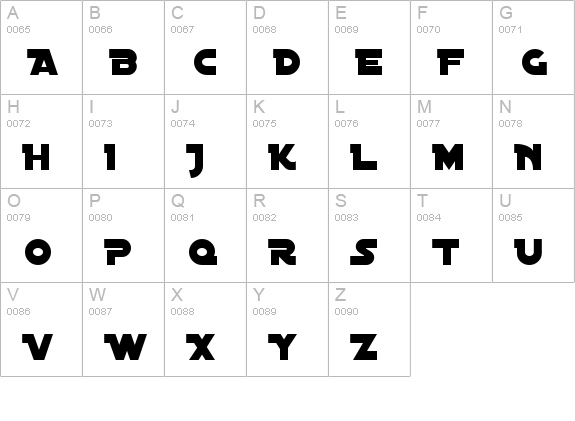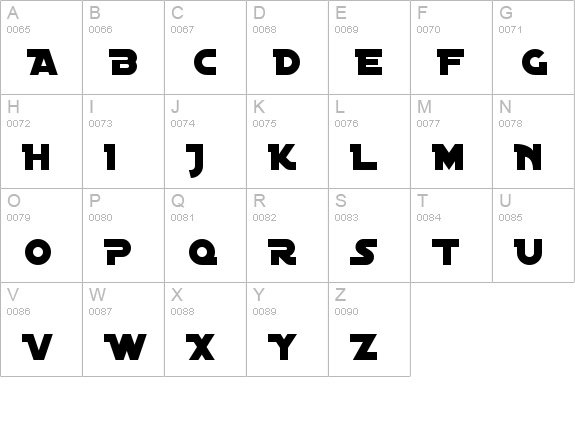
Distant Galaxy Alternate font is a stunning display typeface that transports you to a futuristic world far beyond our own. With its sleek, otherworldly design, this font is perfect for creating eye-catching titles, posters, and digital artwork that will captivate your audience. The unique alternate characters add a touch of sophistication and intrigue to your designs, making them truly stand out. What's even better is that Distant Galaxy Alternate font is completely free to download at FontsMarket.com. This means you can easily access this amazing font and start using it in your projects without any cost. Don't miss out on the opportunity to enhance your designs with this one-of-a-kind typeface – download Distant Galaxy Alternate font today and let your creativity soar to new heights.